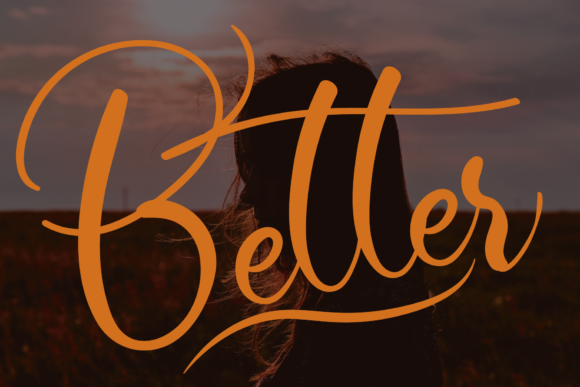
The Quest for the Perfect Font: Discovering Better
I’ll never forget the frustration of working on a design project, hours spent crafting the perfect layout, only to be stumped by the font choice. My client wanted something elegant, yet modern; classy, yet approachable. I scoured font libraries, but nothing seemed quite right. That’s when I stumbled upon Better, an exquisite handwritten font that would become my new go-to.
An Honest Review of Better
So, what makes Better so special? Here are a few things I love:
- ✨ Classy calligraphic influences: Better’s roots in traditional calligraphy shine through, giving it an air of sophistication.
- ✅ Contemporary feel: Despite its classic influences, Better feels fresh and modern, perfect for projects that need a bit of elegance.
- 💫 Versatility: Better works beautifully in a variety of contexts, from branding and advertising to packaging and digital media.
Of course, no font is perfect, and Better has a few minor quirks:
- 🤔 Limited use of all-caps: While Better’s uppercase letters are lovely, they’re best used sparingly. Overuse can make text feel a bit too shouty.
- ⚠️ Occasional kerning issues: As with any font, there may be some kerning issues, particularly with certain letter combinations.
- Experiment with OpenType features like ligatures and stylistic alternates to add visual interest.
The Story Behind Better
Better was designed with the goal of creating a font that’s both elegant and approachable. Its creator aimed to capture the essence of traditional calligraphy while infusing it with a modern twist. The result is a font that’s perfect for designers, crafters, and creative hobbyists looking to add a touch of sophistication to their projects.
| What makes Better a good choice for branding? | Better’s unique blend of classic and modern elements makes it an excellent choice for brands looking to stand out. |
| Is Better suitable for body text? | While Better is beautiful, it’s best used for headings and titles. For body text, a more traditional font might be more readable. |